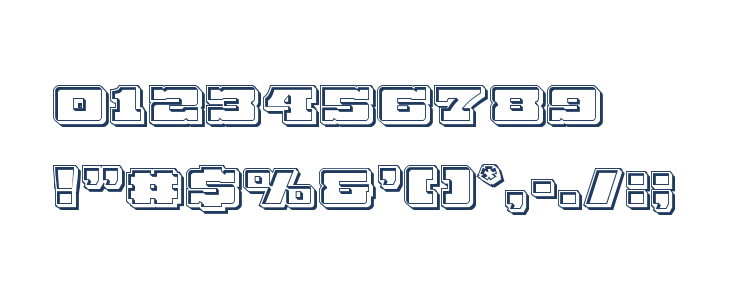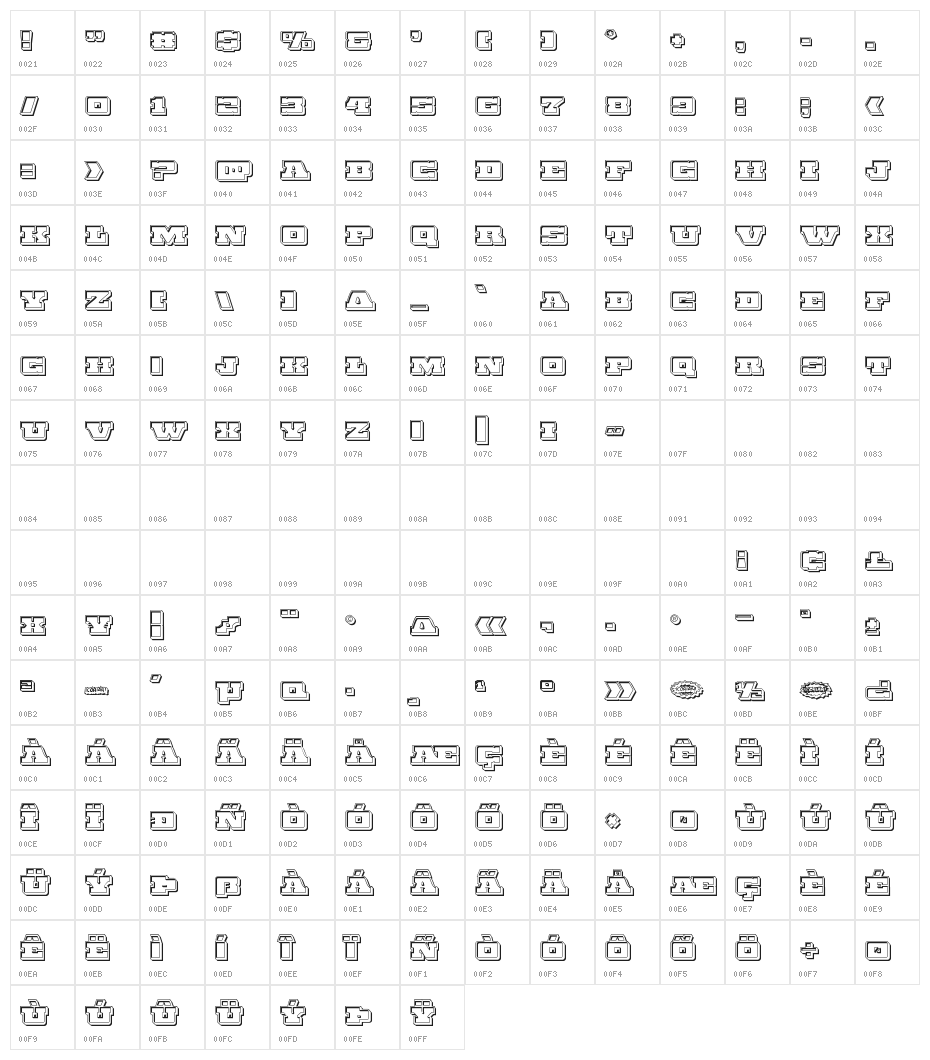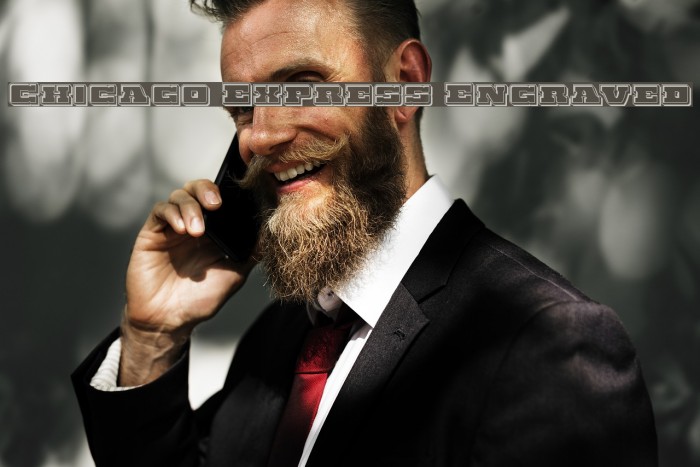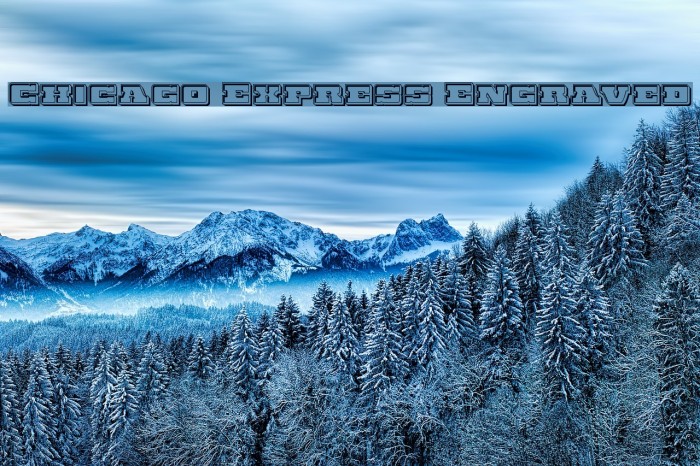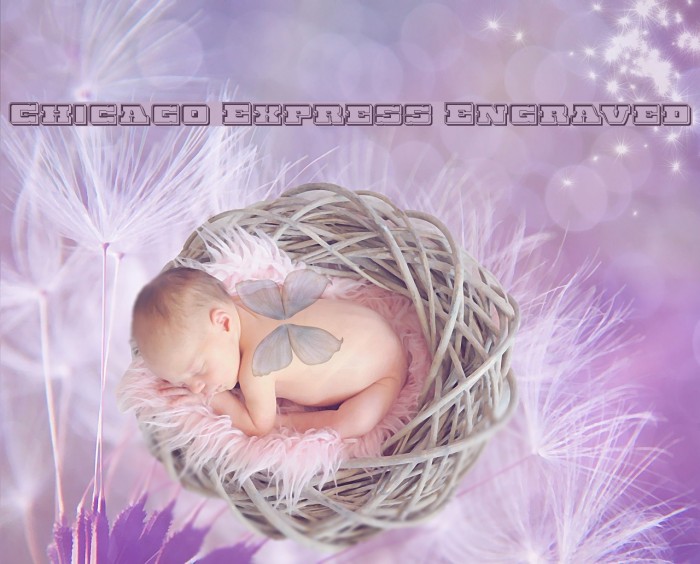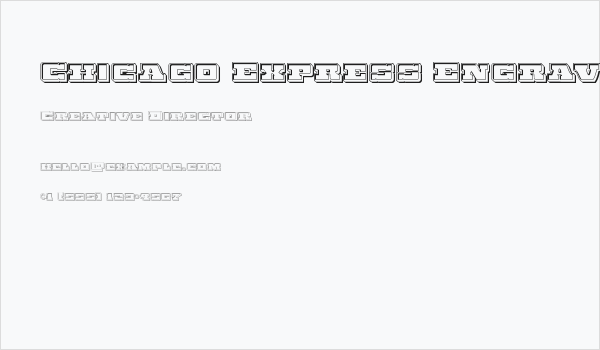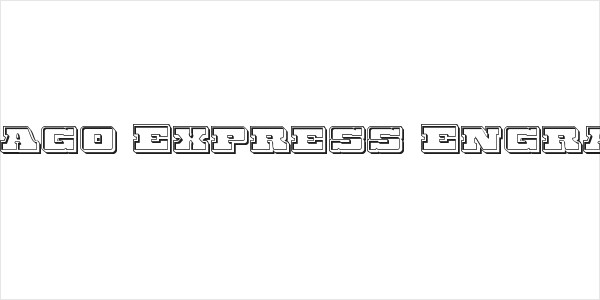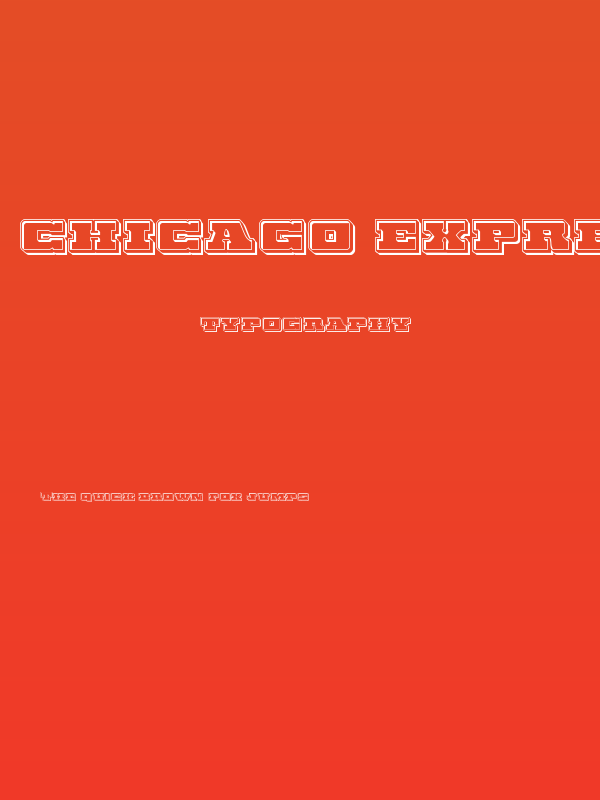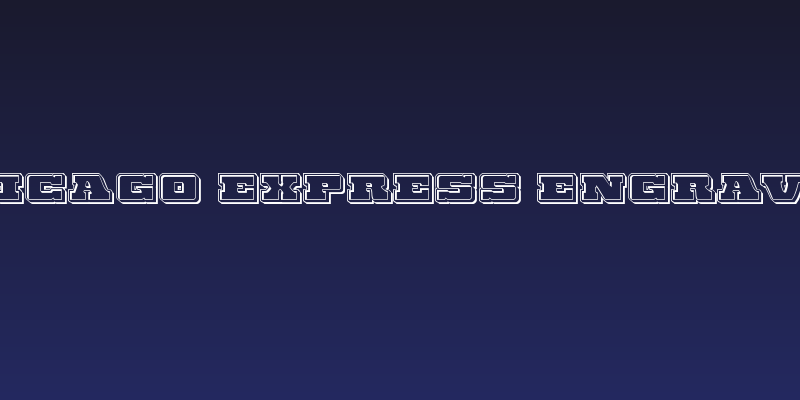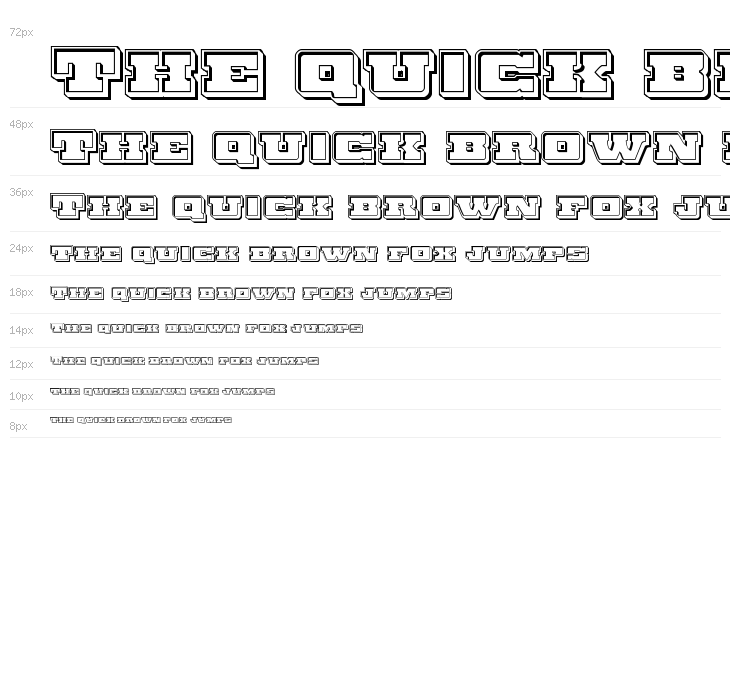
Chicago Express Engraved Font
Chicago Express Engraved Description
This font features a bold, engraved style with a three-dimensional effect that gives each character a sense of depth and solidity. The letters are uppercase and have a strong, geometric structure with sharp angles and clean lines. The design includes a double outline that enhances the engraved appearance, making it stand out prominently. The font is highly decorative, suitable for creating impactful headlines or titles. The numbers and special characters maintain the same bold and structured style, ensuring consistency across all elements.
Proposed ProjectsIdeal for use in posters, logos, signage, and any project requiring a bold, eye-catching typeface.